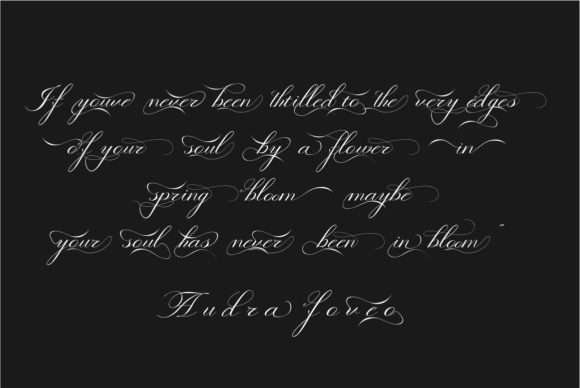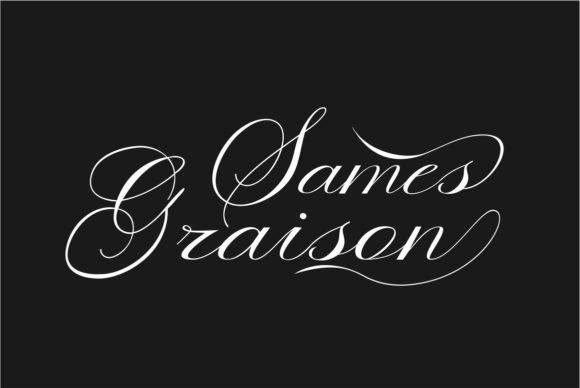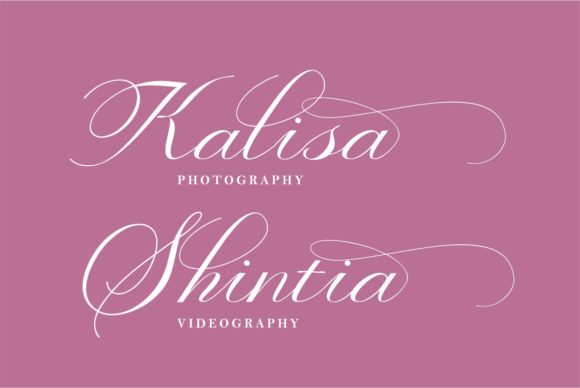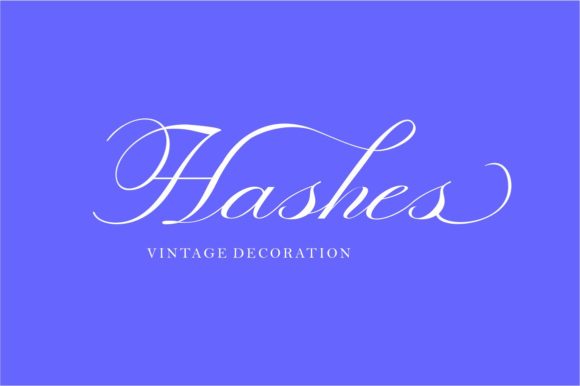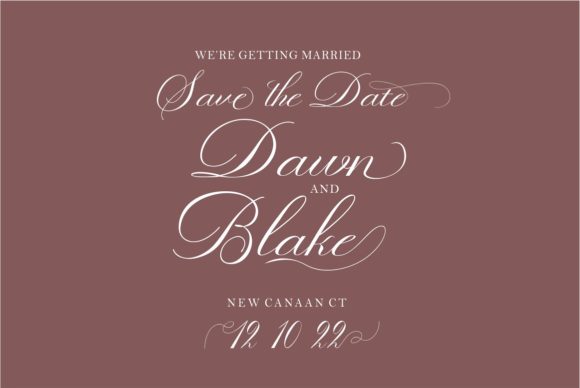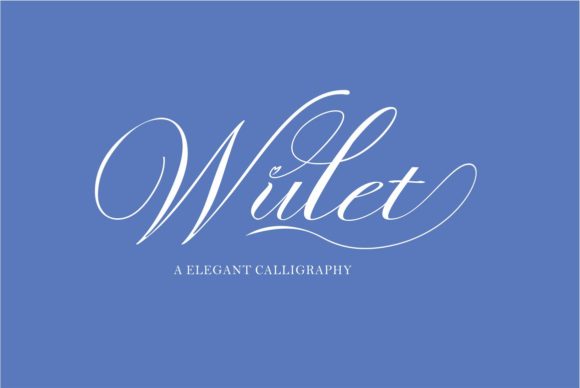
Valetia Font
About Valetia Font
Valetia is a modern calligraphy font featuring beautiful swashes. It will add a romantic touch to any crafting project!